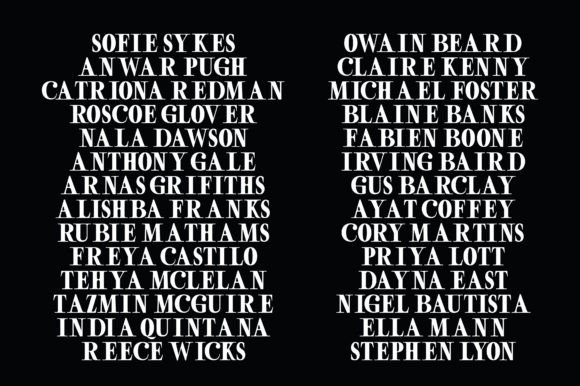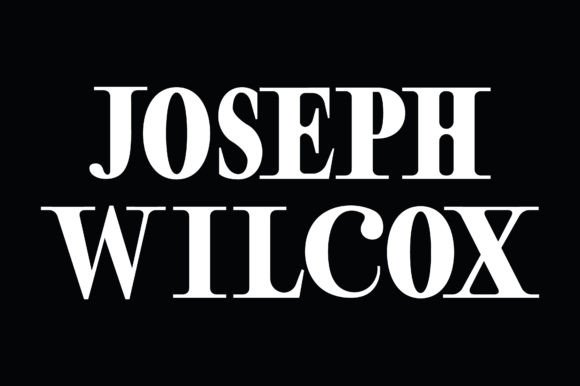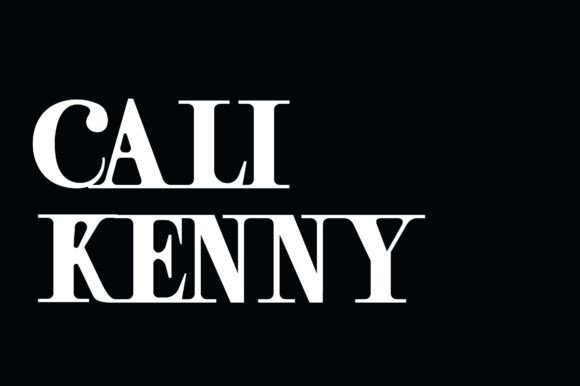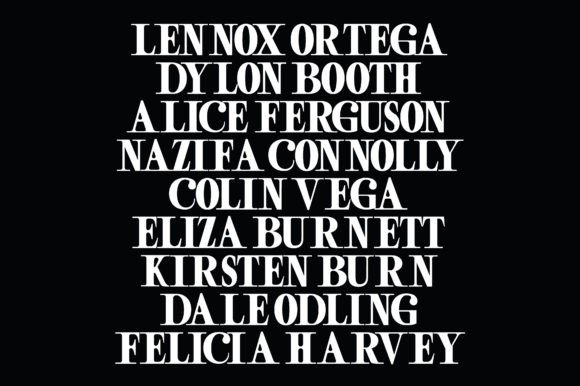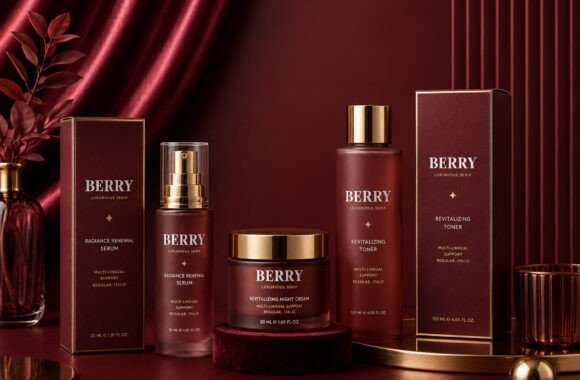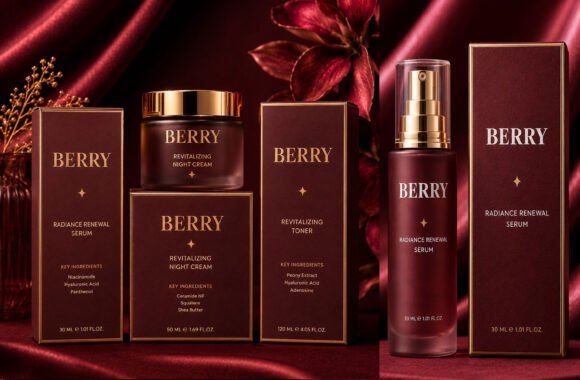
Berry Font: Elevate Your Designs with Elegance and Sophistication
Are you looking for a typeface that exudes luxury, romance, and sophistication? Look no further than the Berry Font, a stunning serif typeface that is sure to elevate your designs to new heights. With its sharp exterior glyph structure and smooth interior glyph space, Berry Font is the perfect choice for designers and crafters seeking to add a touch of elegance to their work.
The Characteristics of Berry Font
Berry Font is an extremely romantic, beautiful, elegant, and chic serif typeface that boasts a unique contrast between its sharp exterior glyph structure and smooth interior glyph space. This contrast adds exceptional elegance to the final aspect of every character, making it perfect for designs that require a touch of sophistication. The font’s serif structure is carefully crafted to provide a sense of luxury and refinement, while its smooth interior glyph space ensures that the text remains highly legible.
Uses of Berry Font
Berry Font is a versatile typeface that can be used in a variety of design themes, including:
- Luxurious Packaging Design: Add a touch of elegance to your packaging designs with Berry Font. Its sophisticated and refined appearance makes it perfect for high-end product packaging.
- Jewelry: Berry Font is a great choice for jewelry designs, as it exudes luxury and sophistication. Use it to create stunning jewelry labels, advertisements, or website headers.
- Fashion House: Elevate your fashion brand with Berry Font. Its elegant and chic appearance makes it perfect for fashion labels, advertisements, and website headers.
- Romantic Film Titles: Add a touch of romance to your film titles with Berry Font. Its beautiful and elegant appearance makes it perfect for romantic movie posters, trailers, and title sequences.
- Luxury Goods Merchandise: Use Berry Font to create stunning luxury goods merchandise, such as high-end apparel, accessories, or home decor items.
Why Choose Berry Font?
So why choose Berry Font over other typefaces? Here are just a few reasons:
- Unique Contrast: Berry Font’s unique contrast between its sharp exterior glyph structure and smooth interior glyph space sets it apart from other typefaces.
- Elegance and Sophistication: Berry Font exudes elegance and sophistication, making it perfect for high-end designs.
- Versatility: Berry Font can be used in a variety of design themes, from luxurious packaging design to romantic film titles.
- Legibility: Despite its elegant and refined appearance, Berry Font remains highly legible, making it perfect for body text and headings.
Tips for Using Berry Font
Here are a few tips for using Berry Font in your designs:
- Use it Sparingly: Berry Font is a statement typeface, so use it sparingly to avoid overwhelming your design.
- Pair it with Other Fonts: Experiment with pairing Berry Font with other fonts to create a unique and visually appealing design.
- Adjust the Font Size: Adjust the font size to achieve the desired level of elegance and sophistication.
In conclusion, Berry Font is a stunning serif typeface that is sure to elevate your designs to new heights. With its unique contrast, elegance, and sophistication, it’s perfect for designers and crafters seeking to add a touch of luxury to their work. Whether you’re designing luxurious packaging, jewelry, or romantic film titles, Berry Font is the perfect choice. So why not give it a try and see the difference it can make in your designs?